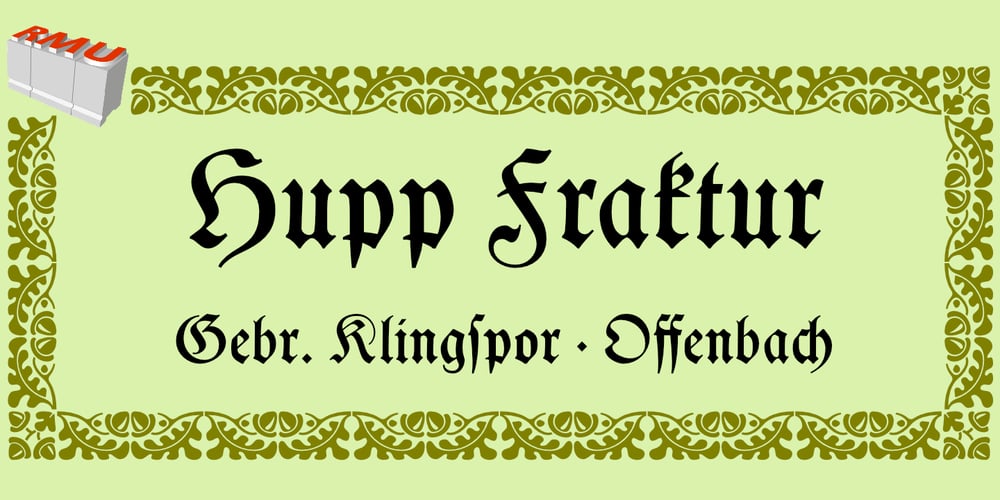
Hupp Fraktur Font Family was designed by Otto Hupp, Ralph M. Unger and published by RMU. Hupp Fraktur contains 1 styles and family package options. Otto Hupp’s blackletter font, released by Klingspor in 1911, took its inspiration from the then dominating Art Nouveau designs. Some of its capitals express this with their lovely swash forms, and make this fraktur font less stiff. Hupp Fraktur contains a bunch of usefull ligarures, and by typing ‘N’, ‘o’ and period you get an oldstyle numbersign by activating the Ordinals feature.